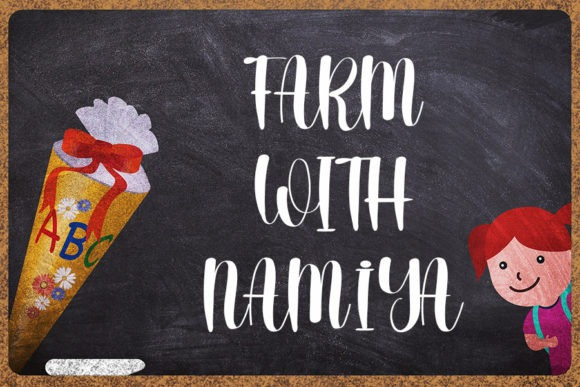
Farmtime Font
Farmtime Script Font is a fun and casual handwritten font. Whether you’re using it for crafts, digital design, presentations, or making greeting cards, this font has the potential to become your favorite go-to font, no matter the occasion!